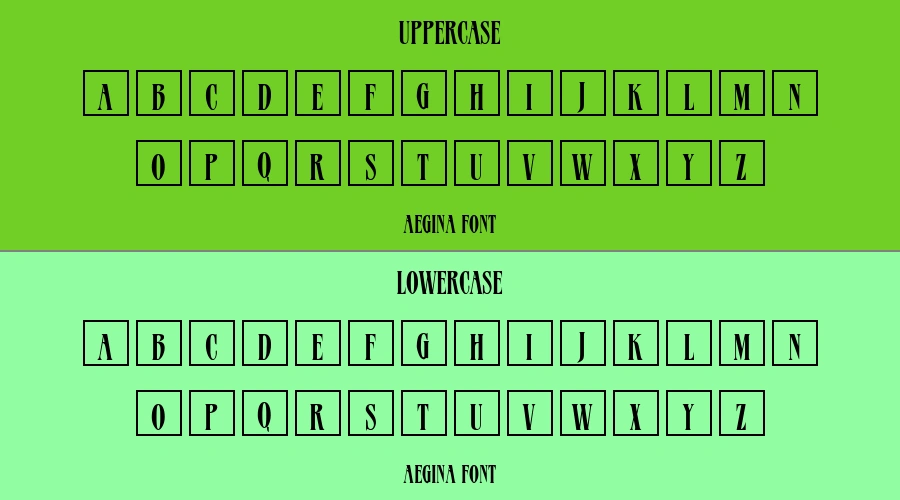
About Aegina Font
Aegina Font embodies typographic excellence through its masterful combination of hand-drawn quality and flexibility. Created for brand guidelines, this typeface delivers exceptional consistency and system compatibility across all applications. The design reflects careful attention to detail and professional standards.
Advanced capabilities include distinctive tapered strokes and versatile contextual alternates, giving designers creative control. When used in product names, Aegina Font exhibits remarkable print fidelity. The harmonious balance between stem weight and design philosophy sets this typeface apart.